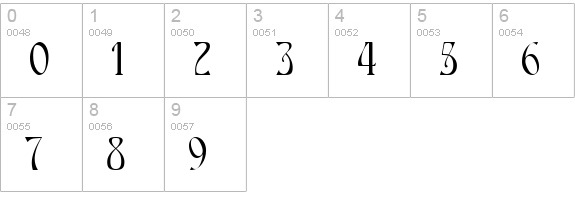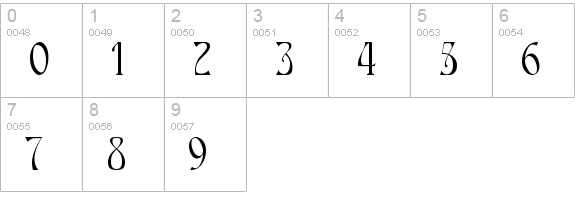
Ambrosia MF Font Details
Ambrosia MF is a stunning and elegant font that exudes sophistication and charm. With its delicate serifs and graceful curves, Ambrosia MF is perfect for adding a touch of luxury to any design project. This timeless font is versatile and can be used for a variety of purposes, from invitations to branding to editorial designs. What sets Ambrosia MF apart is not only its exquisite design, but also the fact that it is available for free. Yes, you read that right - Ambrosia MF can be downloaded for free at FontsMarket.com. This makes it a valuable asset for designers looking to elevate their projects without breaking the bank. Whether you're working on a wedding invitation, a logo design, or a magazine layout, Ambrosia MF is sure to impress with its classic beauty and timeless appeal. Download this gorgeous font for free today and add a touch of sophistication to your next project.